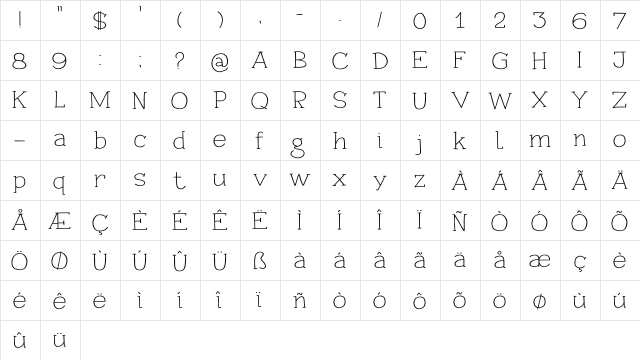
Pineapple Daydream DEMO Regular
| Foundry | David Kerkhoff |
| Designer | David Kerkhoff |
Design Context for Pineapple Daydream DEMO Typeface
Pineapple Daydream DEMO offers clean, dependable letterforms without strong stylistic allegiance, making it a practical choice for designers who need flexibility.
Pro Tip: Pair Pineapple Daydream DEMO with a font of contrasting weight or personality to build a more expressive typographic hierarchy.